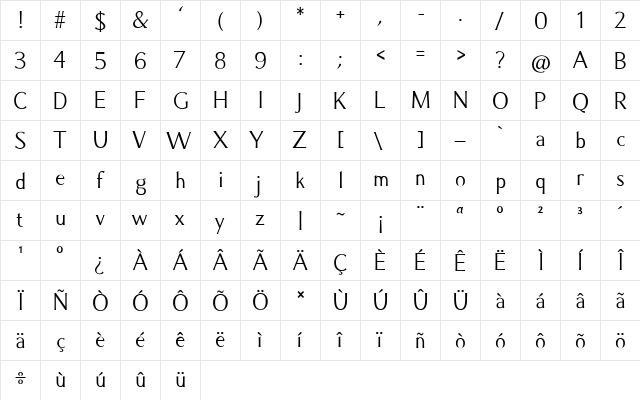
Caramella Regular
| Foundry | Romulo Castilho de Freitas |
| Designer | Romulo C Freitas |
Design Context for Caramella Typeface
Caramella takes a measured approach to typography — its balanced proportions and neutral character make it a reliable workhorse for both digital and print work.